Non Foundry
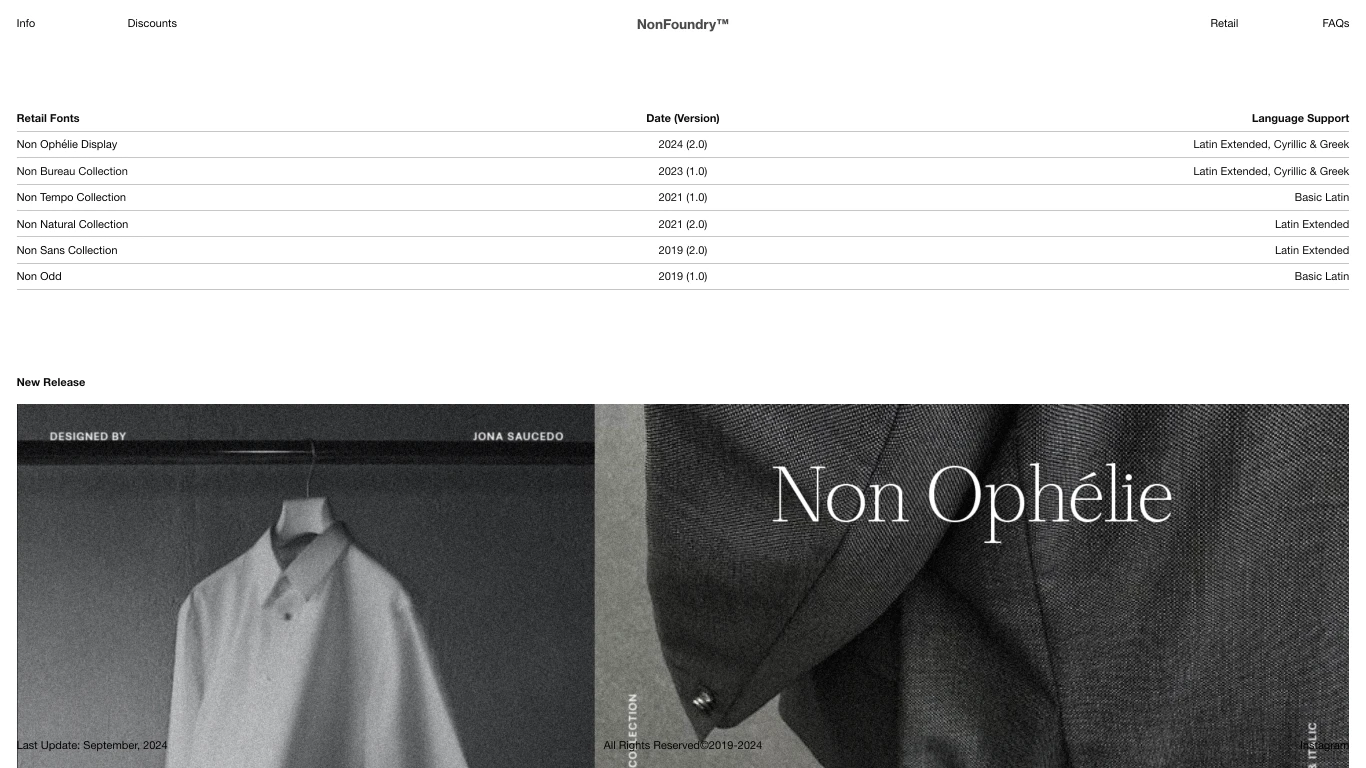
Mexico
2018
Non Foundry, established in 2018 by Jonathan Saucedo in Monterrey, Mexico, is a type foundry that emphasizes the harmonious blend of aesthetics and functionality in type design. Their notable typefaces include Non Odd (2019), a serif typeface characterized by high contrasts and minimalist details, influenced by Albertus; Non Bureau (2023), a sans-serif typeface inspired by Swiss typographic traditions, designed for both body text and headlines; and Non Natural (2024), a sans-serif typeface with subtle details that provide a distinctive personality, aiming for high legibility and contrast suitable for various sizes.